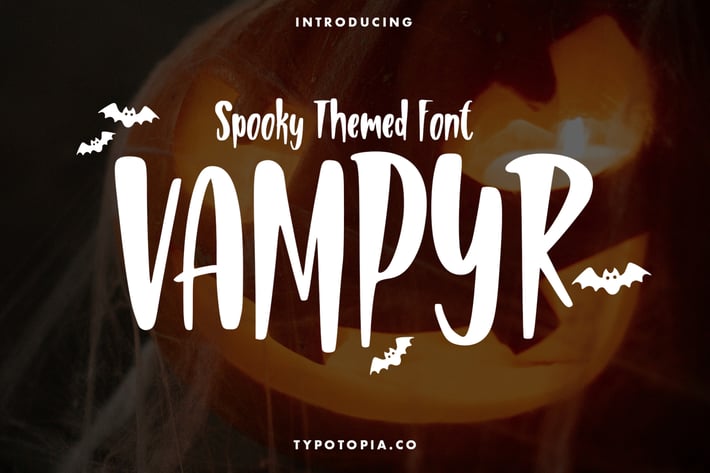
Vampyr Spooky Themed Font
Introducing, Vampyr an incredibly Unique and Interesting Display Font!!
Vampyr is an incredibly Unique and Interesting Display Font for your Design that is absolutely great for your next creative project such as logos, printed quotes, invitations, cards, product packaging, headers, Logotype, Letterhead, Poster, Apparel Design, Label, and etc.
This Versatile Font includes also supports Multilingual Characters. Making this Font a Swiss Army knife in your Font Library. It's extremely fun to use as each word can be transformed to your liking.
What are the main Features on This Fonts:
- Uppercase & Lowercase letters